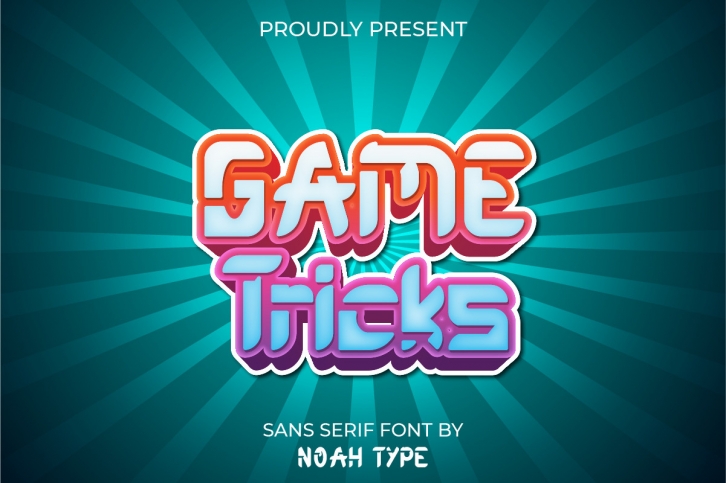
Game Tricks is a unique display font inspired by game headlines, techno, and hip-hop posters. It has a unique and creative style that will bring a special effect to your design projects. This typeface works well for games, technology events, spaceship projects, and many other ideas including headlines, logos, posters, titles, products, etc